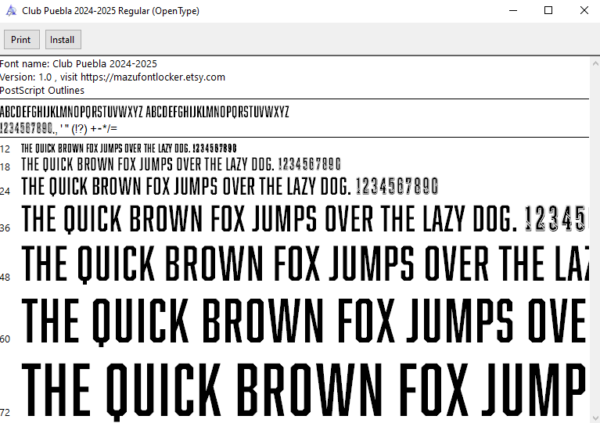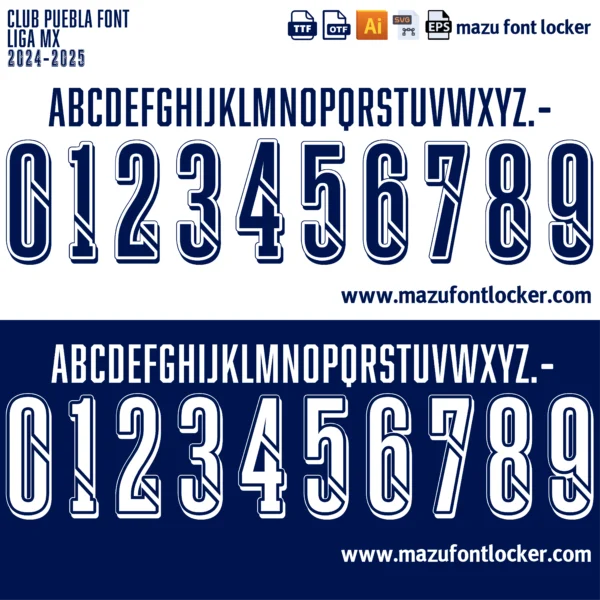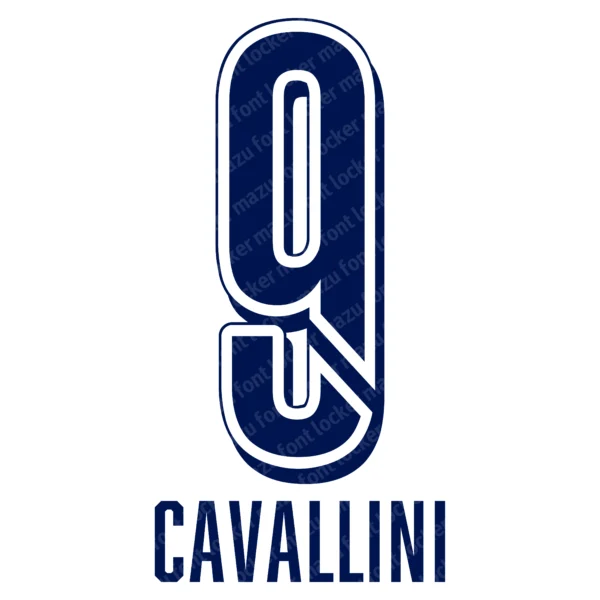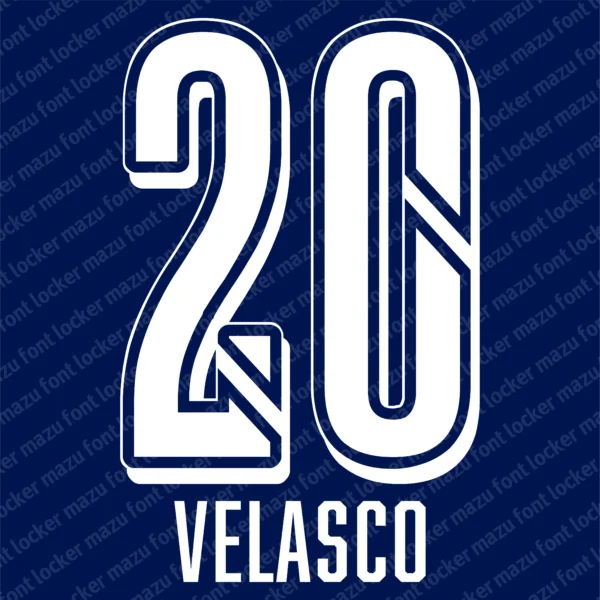
Club Puebla 2024-2025 Font Vector – Epic Blue Franja Masterpiece
Club Puebla 2024-2025 Font Vector – Authentic Club Puebla Typeface
The Club Puebla 2024-2025 Font Vector is a premium typeface that accurately recreates the official match lettering worn by Club Puebla during the 2024-2025 Liga MX season. This high-quality vector font kit captures the bold, vibrant, and passionate typography that represents the pride, resilience, and Mexican spirit of La Franja.
Designed for professional designers and passionate Puebla fans, the Club Puebla 2024-2025 Font Vector delivers perfect authenticity for creating realistic jersey mockups, fan merchandise, matchday posters, social media graphics, and Liga MX content. It pairs beautifully with the iconic blue home kit featuring the famous diagonal white stripe and Club Puebla crest.
This font stands out because of its sharp vector precision and strong club identity. Every letter and number is crafted to match the exact style used on the players’ shirts during the 2024-2025 season. Whether you are making realistic kit templates or exciting Puebla content, the Club Puebla 2024-2025 Font Vector gives your designs that authentic Pueblota look.
The letterforms in the Club Puebla 2024-2025 Font Vector are tall, bold, and highly readable. The strokes have a strong, clean weight with excellent edge definition that looks powerful on the back of jerseys while maintaining classic Mexican heritage and energetic flair.
• Full uppercase A–Z and numbers 0–9 in authentic Club Puebla 2024-2025 style
The Club Puebla 2024-2025 Font Vector is an independently designed typeface package. It is carefully crafted to replicate the official shirt lettering style of the 2024-2025 season. This font kit is perfect for creative projects, fan edits, nostalgic jersey designs, and custom football graphics.